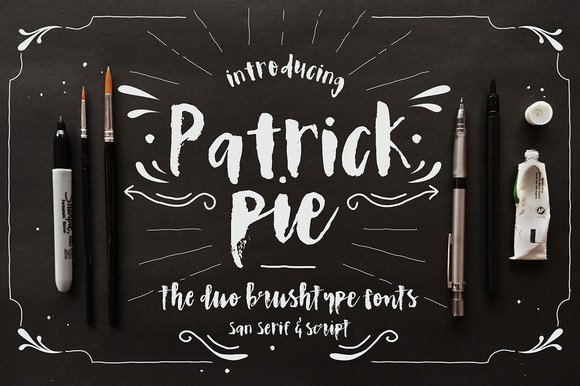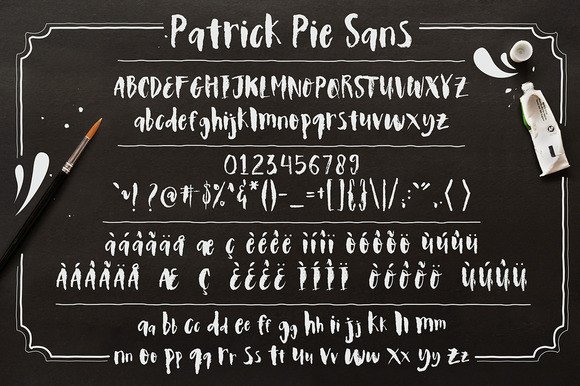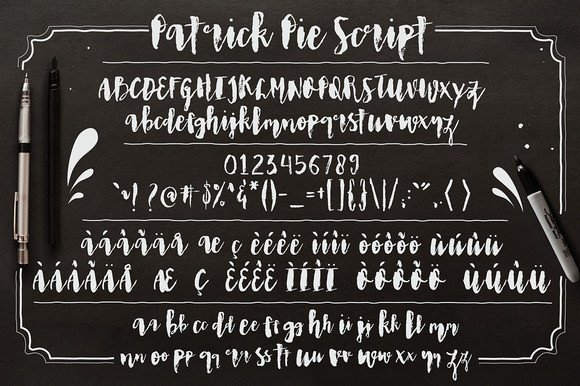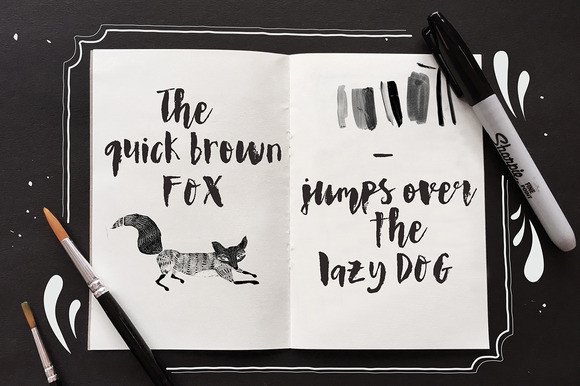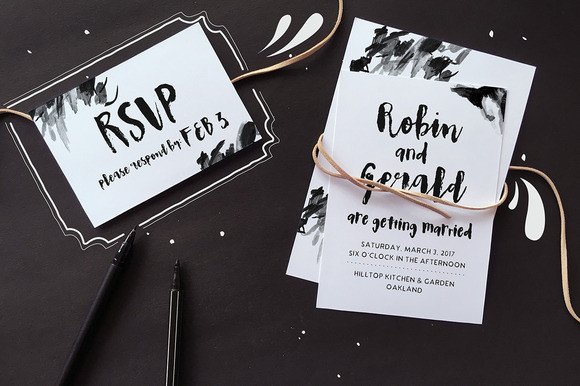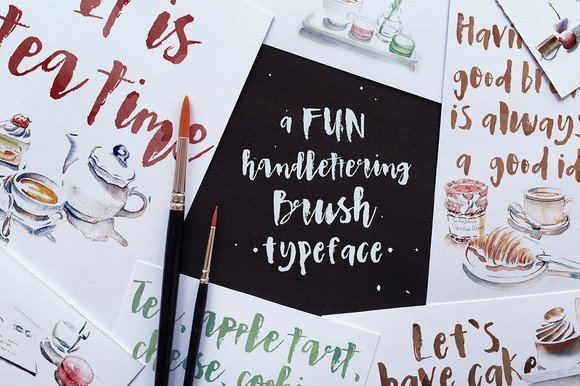
HomeScript FontsPatrick Pie Font Script Fonts Patrick Pie Font FacebookXPinterestWhatsApp Patrick Pie Font Poster 2 Patrick Pie Font Poster 3 Patrick Pie Font Poster 4 Patrick Pie Font Poster 5 Patrick Pie Font Poster 6 About Patrick Pie Font Patrick Pie is a duo typeface: script and sans serif. DOWNLOAD NOW People also explored Floral Ghost Font Wisethink Font Mont Dog Paw Monogram Font Bilion Font Supreme Leader Gaeilge Font Kristal Font Darelina Christmas Font 274 0 TagsPatrick Pie Font Previous articleIlana Bloom FontNext articleHarper Moe Font LEAVE A REPLY Cancel reply Comment: Please enter your comment! Name:* Please enter your name here Email:* You have entered an incorrect email address! Please enter your email address here Website: Save my name, email, and website in this browser for the next time I comment. Personal Use Free 5cent Free Graffiti Personal Use Free Read more about this font Millea Personal Use Free Read more about this font Boston Traffic Personal Use Free Read more about this font Diland Personal Use Free Read more about this font BLOG Using Fonts in Digital Marketing: Tips to Strengthen Your Brand Identity In the realm of digital marketing, every visual element plays a crucial role in shaping a brand's identity, and fonts are no exception. The... Best Fonts for YouTube Videos: Make Your Thumbnails Stand Out To increase your work productivity, choose the most readable fonts. How to Install and Use Fonts on Windows, macOS, and Web Projects